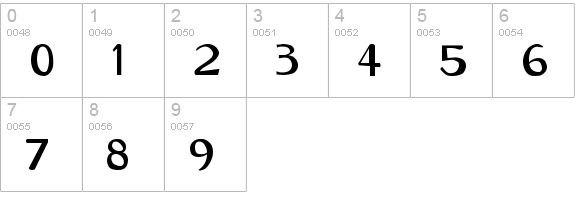
BorowayBOld Font Details
BorowayBOld font is a stunning and versatile typeface that exudes elegance and sophistication. Its bold and stylish design makes it perfect for a wide range of projects, from branding to editorial design. The font features clean lines and a modern aesthetic that is sure to make your text stand out. What sets BorowayBOld font apart is not only its exceptional design but also the fact that it is completely free to use. You can download this incredible font for free at FontsMarket.com, making it accessible to everyone looking to elevate their design projects. With BorowayBOld font, you can add a touch of class to your work without breaking the bank. Don't miss out on this amazing opportunity to enhance your designs with BorowayBOld font. Download it for free today and see the difference it can make in your projects!